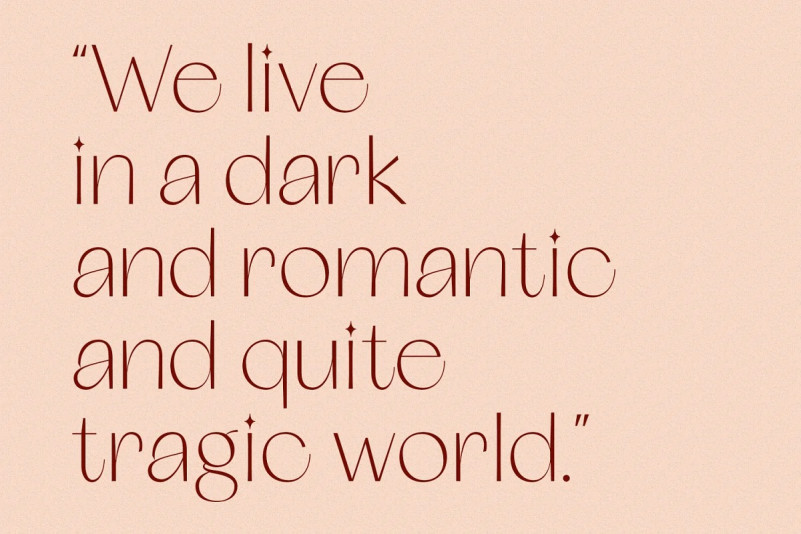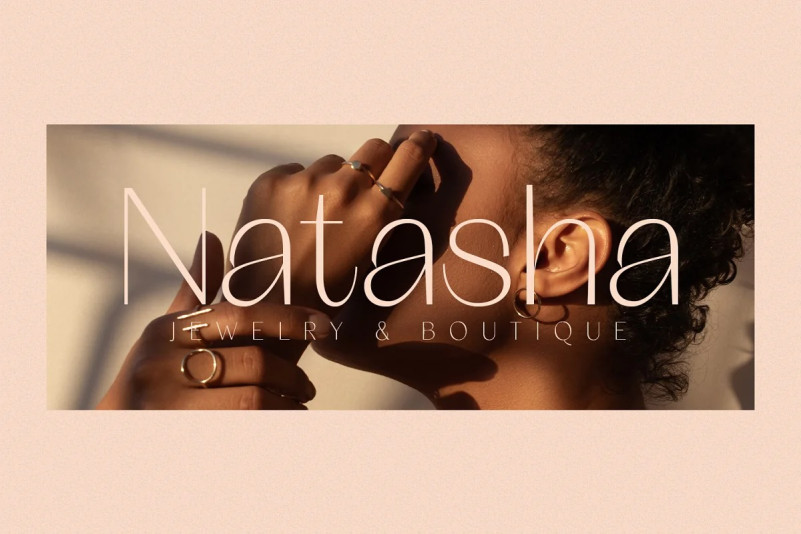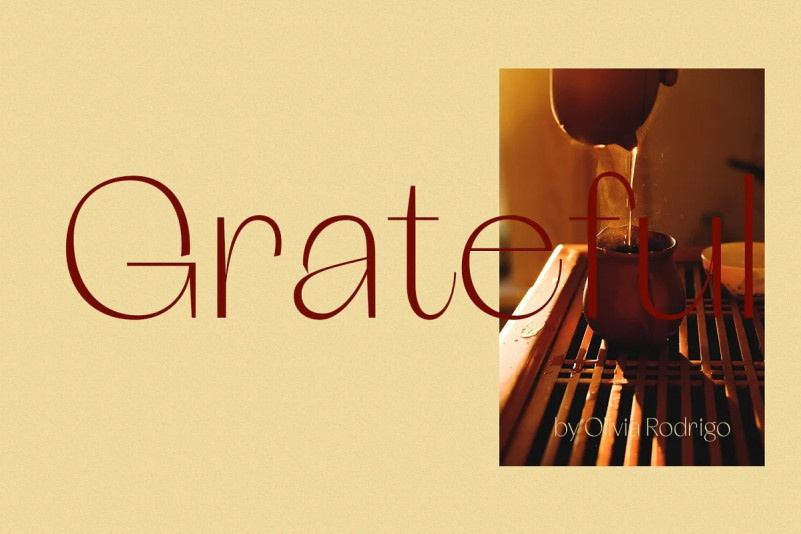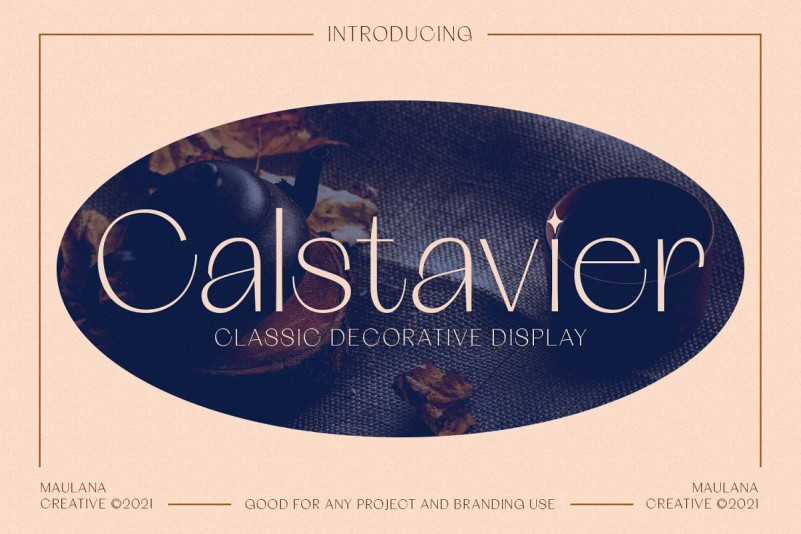
Calstavier Font
Calstavier Serif Font has an aesthetic style, and the serif-type tagline is modern and elegant. With high contrast stroke and fun character, To give you an extra creative work. Calstavier font support multilingual more than 100+ language. This font is good for logo design, Social media, Movie Titles, Books Titles, a short text even a long text letter and good for your secondary text font with script or signature typeface. Make a stunning work with Calstavier font.